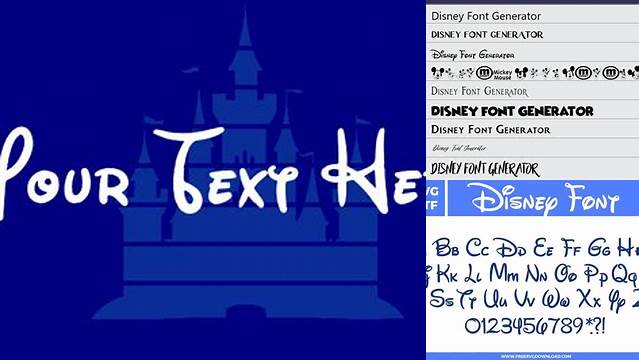
Free Disney Font Generator: Copy & Paste Magic
Hey there, font enthusiasts and Disney lovers! Are you looking to add a touch of magic to your projects? Do you dream of creating designs that scream Disney? Well, you've come to the right place! In this article, we'll dive into the world of Disney font generators, exploring how you can use them for free, copy and paste your way to stunning typography, and infuse your creations with that unmistakable Disney charm. So, buckle up, grab your Mickey ears, and let's get started!
What is a Disney Font Generator?
Okay, so what exactly is a Disney font generator? Simply put, it's a tool that allows you to create text that mimics the iconic Disney font. Think of the classic, whimsical lettering you see in Disney movie titles, theme park logos, and merchandise – that's the magic we're talking about! These generators come in various forms, from simple online tools where you type in your text and generate an image, to more sophisticated software that lets you download the font files for use in your favorite design programs. The best part? Many of these generators are available for free, making it super easy to add that Disney flair to your projects without breaking the bank. We all love freebies, right, guys? Using a Disney font generator is like having a fairy godmother for your typography needs. It's an accessible and fun way to capture the essence of Disney's visual identity. Whether you're working on a birthday invitation, a social media graphic, or a personal project, these tools can help you channel the magic of Disney. Just imagine the possibilities! You can create personalized banners, quirky quotes, or even design your own Disney-themed website. The key is to understand how these generators work and how to best utilize them. Most online generators provide a user-friendly interface where you can input your desired text. The generator then processes this input and converts it into the Disney-style font. You often have options to customize the size, color, and even add special effects to your text. This flexibility allows you to tailor the font to perfectly match your project's aesthetic. Beyond the online generators, there are also downloadable fonts that you can install on your computer. These fonts offer even more versatility as they can be used across various applications, such as word processors, graphic design software, and video editing tools. This means you can seamlessly integrate the Disney font into any project, ensuring a consistent and professional look. In essence, a Disney font generator is your gateway to a world of creative possibilities. It's a tool that bridges the gap between your imagination and reality, allowing you to bring the enchantment of Disney to life through the power of typography. So, let's explore how you can find and use these generators to create your own magical designs.
Creative Ways to Use Disney Fonts
Now comes the fun part: actually using your Disney fonts! The possibilities are truly endless when it comes to creative applications. Whether you're planning a party, designing a website, or just want to add a touch of magic to your personal projects, Disney fonts can be a game-changer. One of the most popular uses for Disney fonts is in party invitations and decorations. Imagine creating a birthday invitation that looks like it came straight out of a Disney fairy tale! You can use Disney fonts to write the party details, add a whimsical touch to banners and signs, and even create custom cupcake toppers. The kids (and adults!) will absolutely love it. For those who are into scrapbooking or crafting, Disney fonts are a must-have. You can use them to create titles for your scrapbook pages, add quotes to your handmade cards, or personalize gifts for your loved ones. The Disney font adds a touch of nostalgia and charm that is sure to bring a smile to anyone's face. If you're a blogger or social media enthusiast, Disney fonts can help you create eye-catching graphics and headers. Use them to design your blog logo, create engaging social media posts, or add a unique touch to your website banners. A well-designed visual identity can go a long way in attracting and retaining your audience. Disney fonts are also perfect for personal projects, such as designing custom phone cases, creating personalized mugs, or even making your own Disney-themed apparel. The possibilities are limited only by your imagination! You can use these fonts to express your love for Disney in a fun and creative way. But remember, while Disney fonts are great for adding a touch of magic, it's important to use them judiciously. Overusing them can make your design look cluttered and overwhelming. Try to balance the Disney font with simpler fonts to create a visually appealing and balanced design. Another important consideration is the legibility of the font. While Disney fonts are known for their unique and whimsical style, some of them can be difficult to read if used in small sizes or with too much text. Make sure your text is clear and easy to read, especially if it contains important information. When using Disney fonts, think about the overall message you want to convey. These fonts are often associated with themes of magic, childhood, and fantasy. If your project aligns with these themes, then a Disney font can be a perfect choice. However, if your project has a more serious or professional tone, you might want to consider using a different font style. So, there you have it! A plethora of creative ways to use Disney fonts. Whether you're planning a party, designing a website, or just want to add a touch of magic to your life, these fonts can help you bring your vision to life. Go ahead and unleash your creativity!
Tips for Choosing the Right Disney Font
Choosing the right Disney font can be a bit like finding the perfect glass slipper – it needs to fit just right! With so many variations and styles available, it's essential to consider a few key factors to ensure your chosen font complements your project perfectly. One of the first things to consider is the overall tone and style of your project. Are you creating a whimsical birthday invitation or a more formal announcement? The Disney font you choose should reflect the mood you're trying to convey. For example, a playful, cartoonish font might be perfect for a children's party, while a more elegant, script-like font could be ideal for a wedding invitation with a Disney theme. Think about the message you want to communicate and choose a font that aligns with that message. Another important factor to consider is legibility. While Disney fonts are known for their unique and eye-catching designs, some of them can be difficult to read, especially when used in small sizes or for large blocks of text. If readability is a priority, opt for a Disney font that is clear and easy to decipher. Avoid fonts with overly intricate or stylized characters, as these can be challenging to read. The context in which the Disney font will be used is also crucial. Will it be displayed on a computer screen, printed on paper, or used in a video? Different media may require different font styles. For example, a font that looks great on a website might not translate well to a printed brochure. Test your font in the intended medium to ensure it looks its best. The color and size of the Disney font can also impact its visual appeal. Experiment with different colors and sizes to see what works best for your project. A bold, vibrant color can make the font stand out, while a more subtle color can create a more understated look. Similarly, the size of the font should be appropriate for the context. A font that is too small may be difficult to read, while a font that is too large may overwhelm the design. Don't be afraid to mix and match Disney fonts with other font styles to create a visually interesting and balanced design. Using a single font throughout your project can be monotonous, while combining different fonts can add depth and personality. Just be sure to choose fonts that complement each other and avoid using too many different styles, as this can make your design look cluttered. Remember, the goal is to create a cohesive and visually appealing design. Finally, trust your instincts and have fun with it! Choosing the right Disney font should be an enjoyable process. Experiment with different options, play around with different styles, and let your creativity guide you. There are no hard and fast rules when it comes to design, so don't be afraid to break the mold and create something truly unique. So, armed with these tips, you're ready to embark on your Disney font adventure! Choose wisely, have fun, and let your imagination soar.
Conclusion: Embrace the Magic of Disney Fonts
So, there you have it, folks! We've journeyed through the enchanting world of Disney font generators, exploring how to find them, copy and paste them, and use them in creative ways. Disney fonts are more than just letters; they're a gateway to a world of magic, nostalgia, and imagination. They can transform your projects from ordinary to extraordinary, adding that special touch of Disney charm that everyone loves. Whether you're creating invitations, designing graphics, or just want to add a little bit of magic to your everyday life, Disney fonts are a fantastic tool to have in your arsenal. The best part is that many of these fonts are available for free, making it accessible to anyone who wants to add a touch of Disney to their creations. Remember, the key to using Disney fonts effectively is to choose the right font for the project and use it judiciously. Think about the overall tone and style of your design, and make sure the font complements the other elements. Legibility is also important, so choose a font that is easy to read, especially for larger blocks of text. But most importantly, have fun with it! Disney fonts are meant to be enjoyed, so let your creativity run wild and see what magical creations you can come up with. Experiment with different styles, colors, and sizes, and don't be afraid to try something new. The world of design is all about exploration and self-expression, so embrace the opportunity to showcase your unique vision. As we've seen, there are countless ways to use Disney fonts, from party decorations to social media graphics, personal projects to professional designs. The possibilities are truly endless. So, whether you're a seasoned designer or a complete beginner, dive in and discover the magic of Disney fonts for yourself. And remember, the most important ingredient in any design is your own creativity. So, go forth, create, and let the magic of Disney inspire you! Who knows, you might just create the next big Disney masterpiece. Thanks for joining me on this magical journey, and I can't wait to see what amazing things you create with your newfound Disney font skills! Happy designing, everyone!